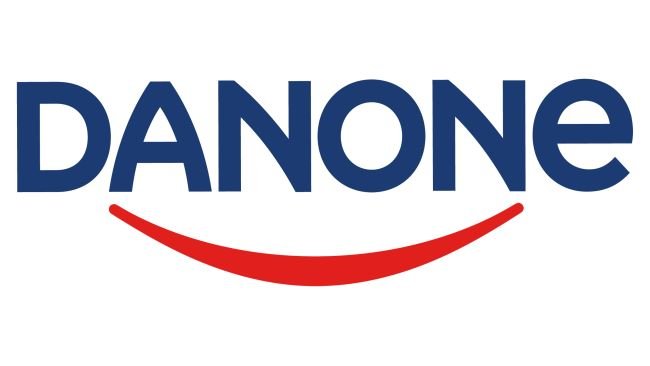
Danone Font
Danone font — closest to Babetta Bold, available commercially through MyFonts — is the typography of the French multinational food corporation that has spent over a century making the case that what people eat is inseparable from how they feel, and that a company which takes nutrition seriously has a responsibility to communicate that seriousness in every element of its visual identity, including its letterforms. Babetta Bold’s particular character — rounded without being childish, structured without being cold — serves this balance well.